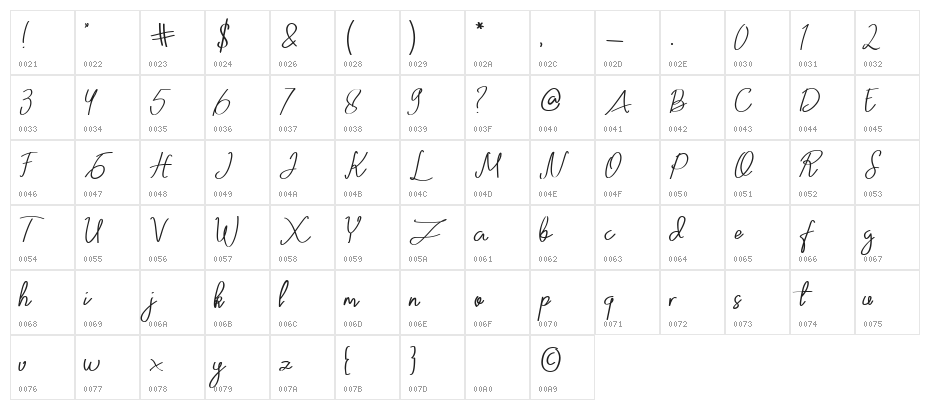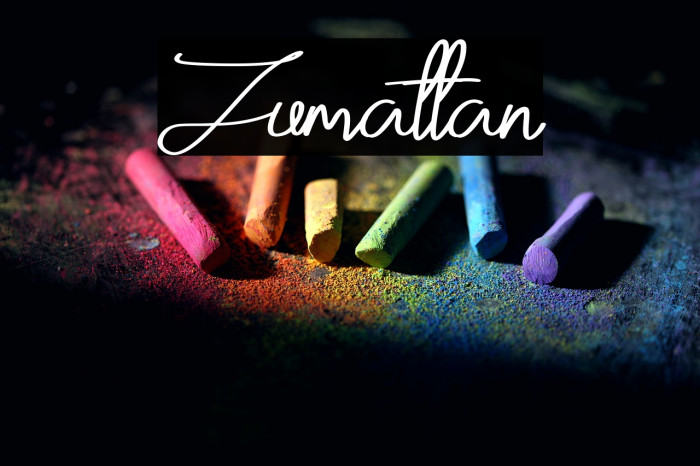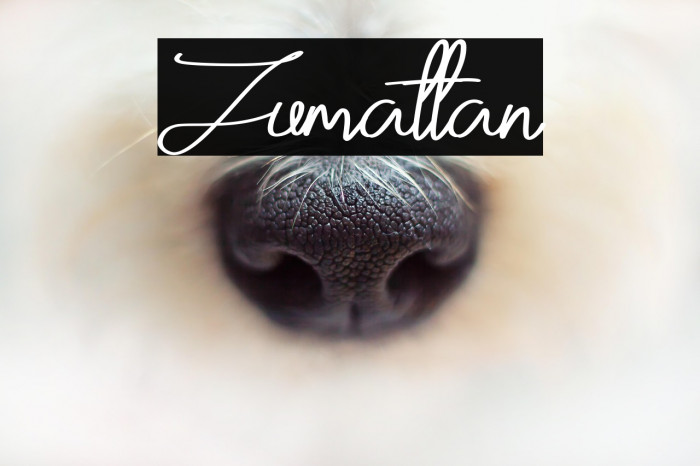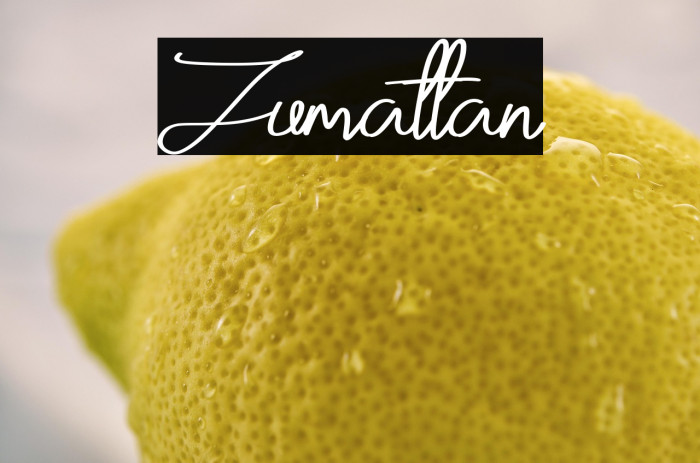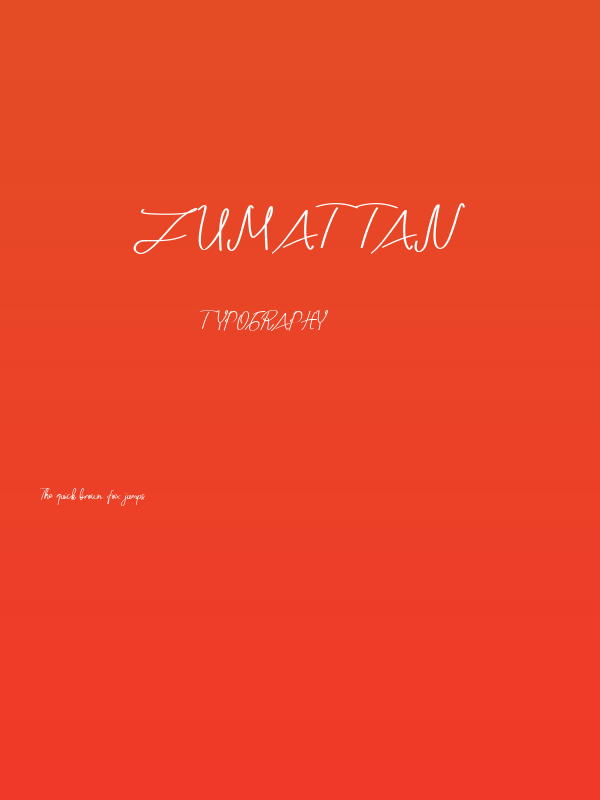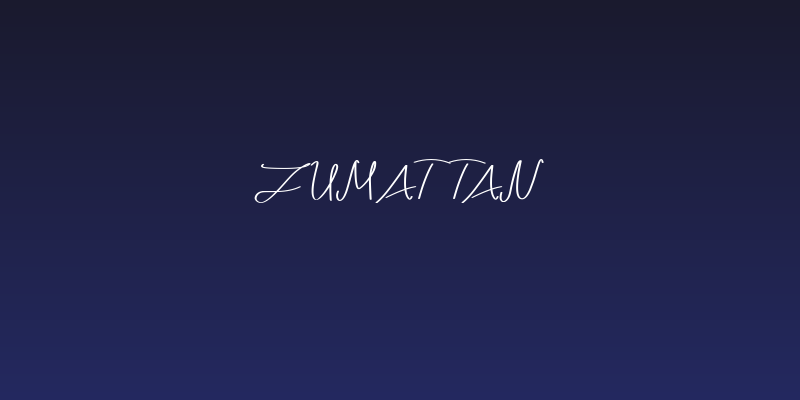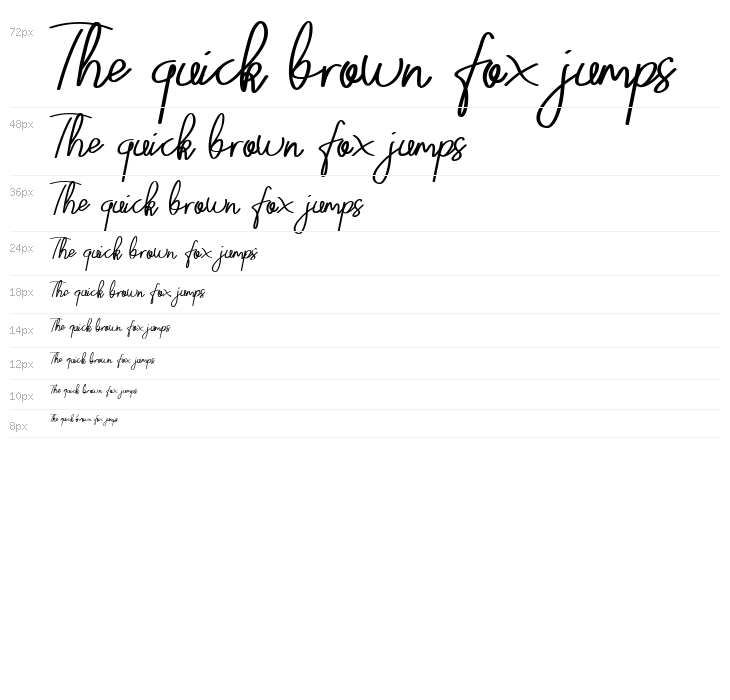
Zumattan Font
Zumattan Description
This font exudes a lively and dynamic handwritten style, characterized by its fluid and continuous strokes. The uppercase letters are elegantly elongated, with a slight slant that adds a sense of movement and grace. The lowercase letters maintain a consistent flow, creating a cohesive and harmonious look. Numbers and special characters follow the same energetic style, ensuring uniformity across all elements. The overall appearance is both casual and sophisticated, making it suitable for a variety of creative applications.
| Proposed Projects | Ideal for personal branding, invitations, greeting cards, and creative projects that require a personal touch. |